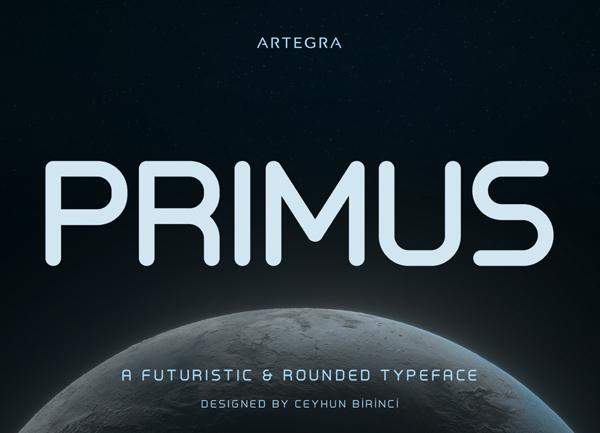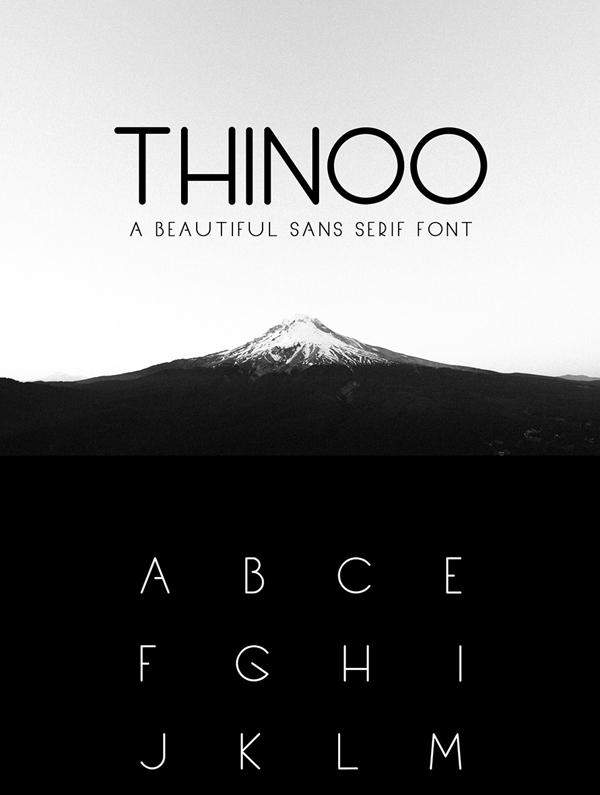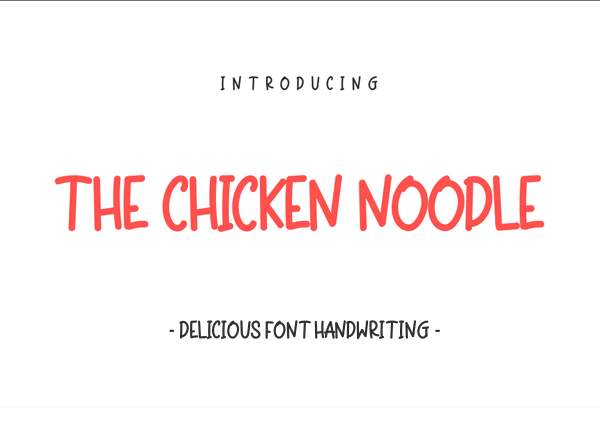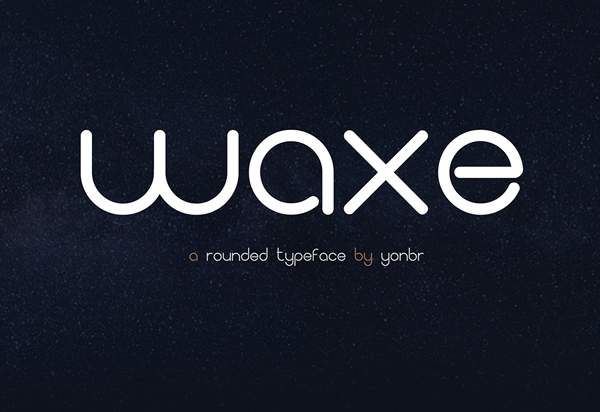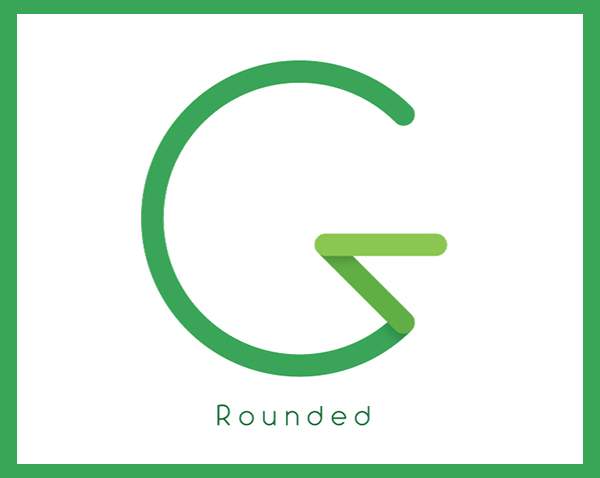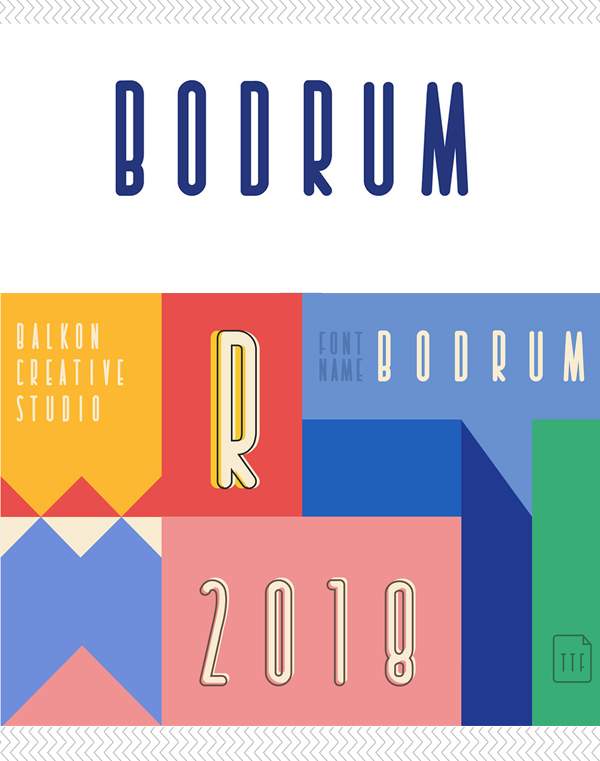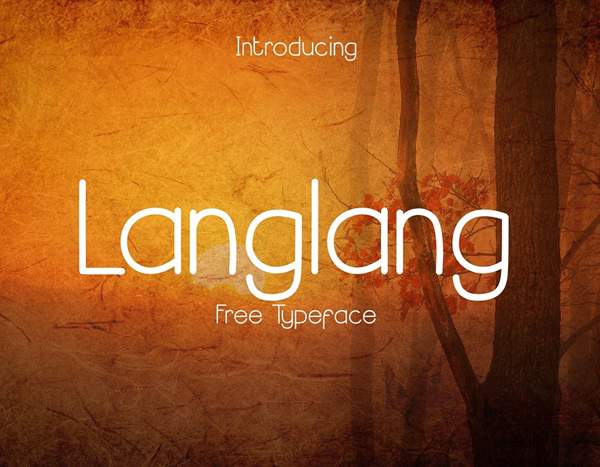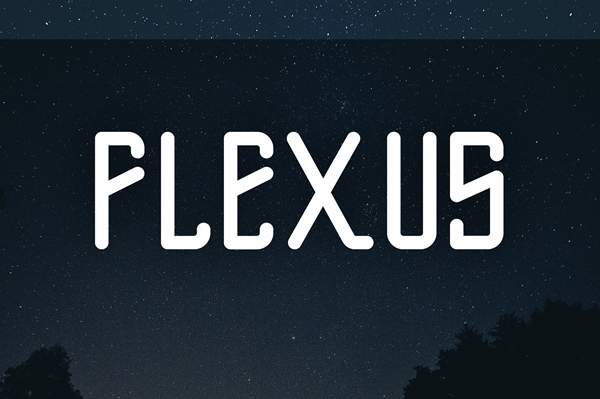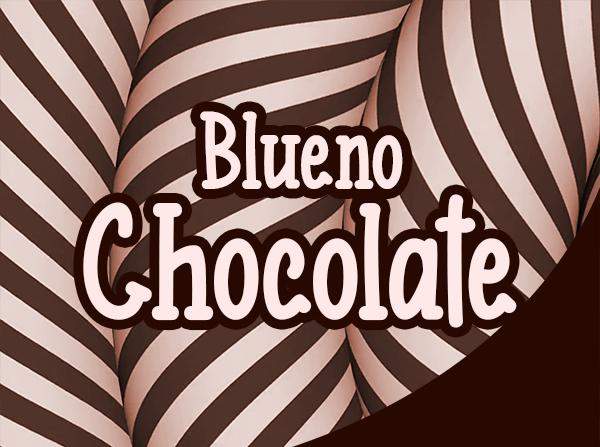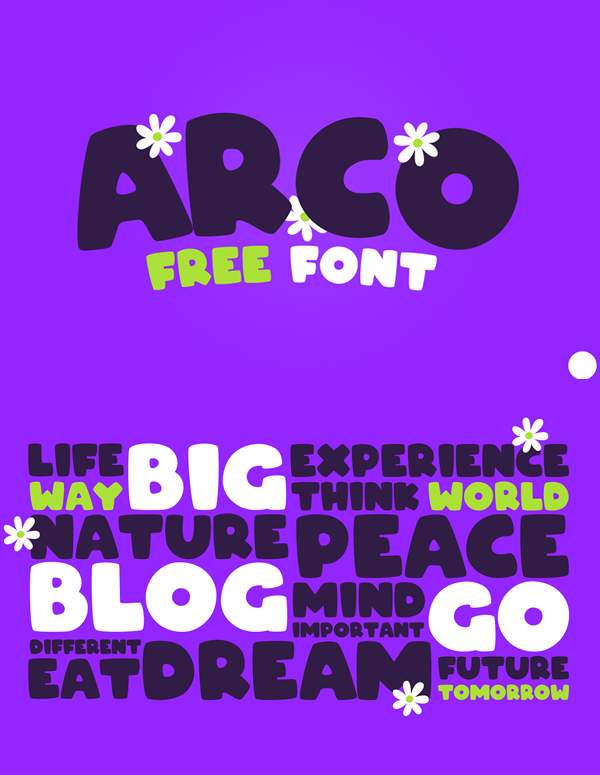
Top Free Rounded Fonts for Designers
Discover a curated collection of top free rounded fonts perfect for designers looking to enhance branding, visual identity, and business card design. Rounded fonts offer a smooth and friendly aesthetic that can make your typography, logos, and graphics feel approachable, modern, and professional.
Why Choose Rounded Fonts for Your Projects
Rounded fonts for designers are highly versatile. They work beautifully for branding projects, website headers, UI/UX design, and graphic design compositions. Using free rounded typefaces, you can create a cohesive visual style that is both eye-catching and professional. These fonts are especially suitable for:
• Business cards and stationery
• Website and app interfaces
• Marketing materials and promotional graphics
• Social media posts and banners
• Packaging design and product branding
Features of This Rounded Font Collection
This handpicked collection includes the most popular smooth, rounded typefaces, all of which are:
• Optimized for legibility and clarity
• Suitable for print and digital design
By incorporating rounded fonts into your projects, you can achieve a friendly, modern, and polished look while maintaining professionalism and readability.
Elevate Your Design with Free Rounded Fonts
Whether you’re working on typography-based branding, web design, or graphic projects, these rounded fonts are a must-have for any designer’s toolkit. They allow you to experiment with style, layout, and personality in your creative work.
💡 Pro Tip: Combine rounded fonts with soft color palettes and clean layouts to maximize visual appeal and create designs that are modern, approachable, and memorable.
1. FontPrimus
2. Typolino Font
3. Weslona Handmade font
4. Blueno Chocolate font
5. Oligopoly font
6. ARCO font
7. Don Jose font
8. Abingdon font
9. Delbert Sketch font
10. Thinoo Modern Sans Serif font
11. ForestSmooth Free font
12. Chicken Noodle font
13. Jomohand Free font
14. Waxe Free font
15. Quickens font
16. Easy Outline font
17. GRounded font
18. Timbra Sans font
19.  Bodrum Free font
20. Langlang Free font
21.  Flexus font
22. Corn Free Font